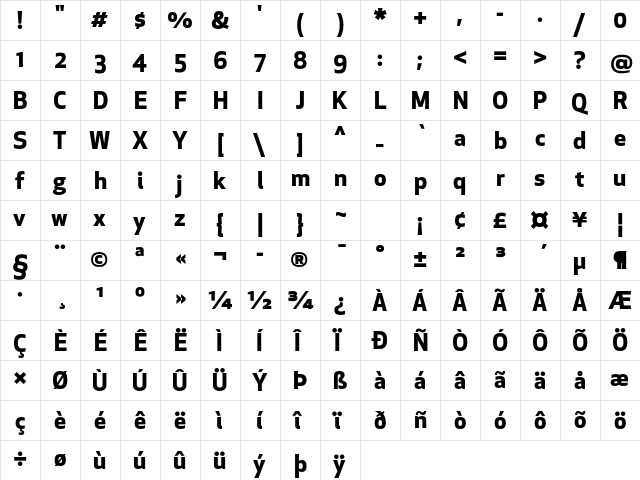
Apex New Bold
| Foundry | Village Type & Design LLC (Thirstype) |
| Designer | chester (orignally designed with Rick Valicenti) |
| Version | Version 1.001 2006, Revised version replacing Apex Sans |
Design Context for Apex New Typeface
Apex New is a composed and adaptable typeface that performs quietly and consistently across a wide range of design contexts. The heavy weight commands attention and anchors typographic hierarchies.